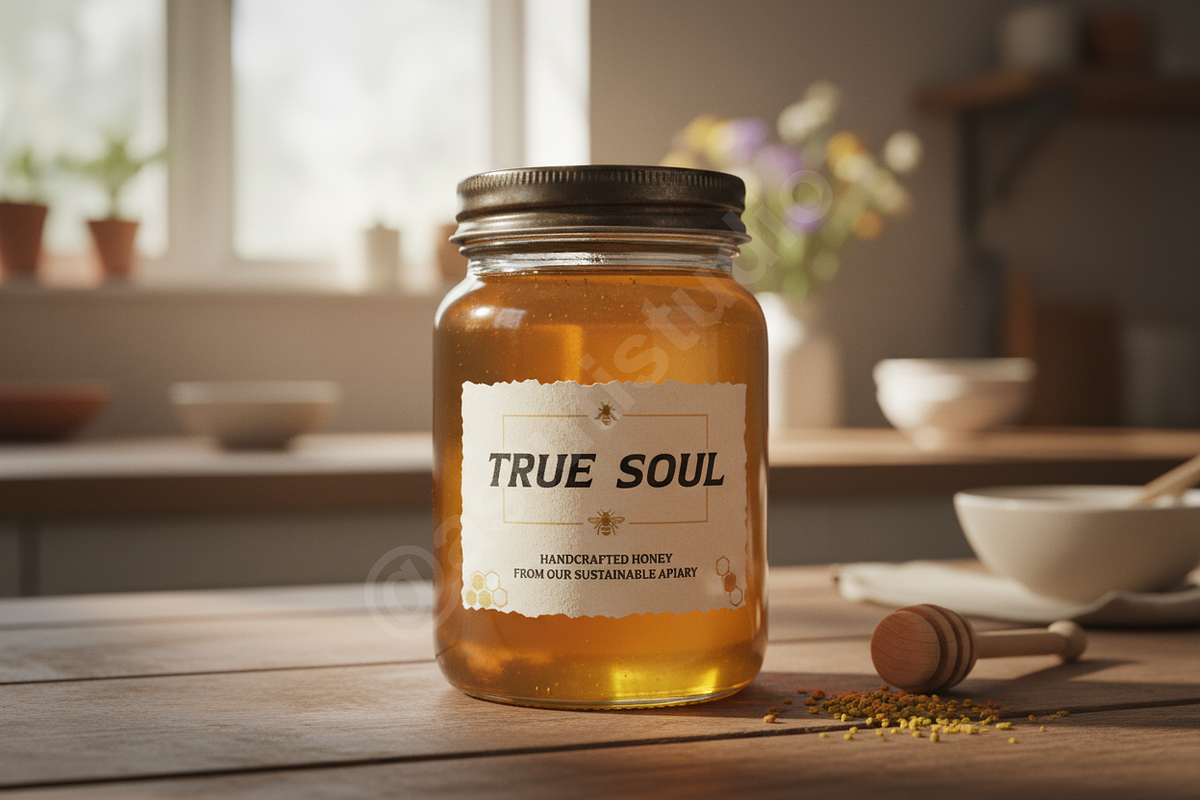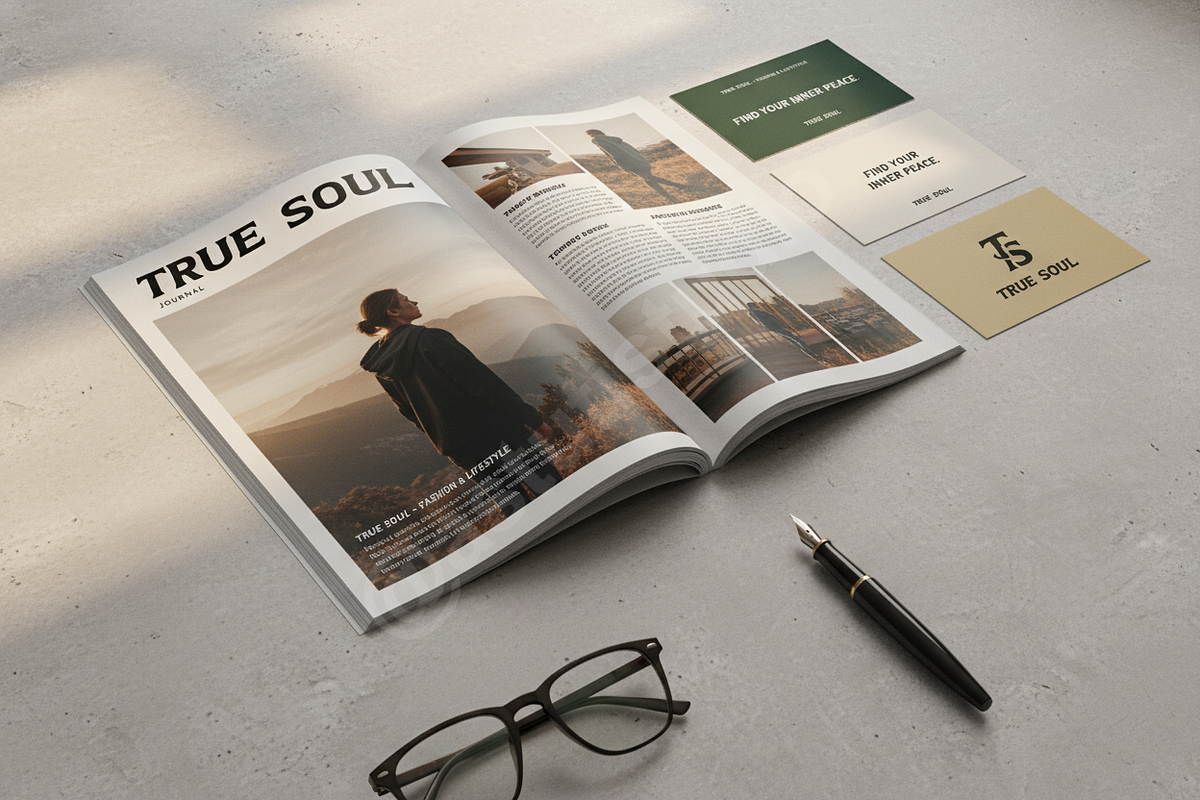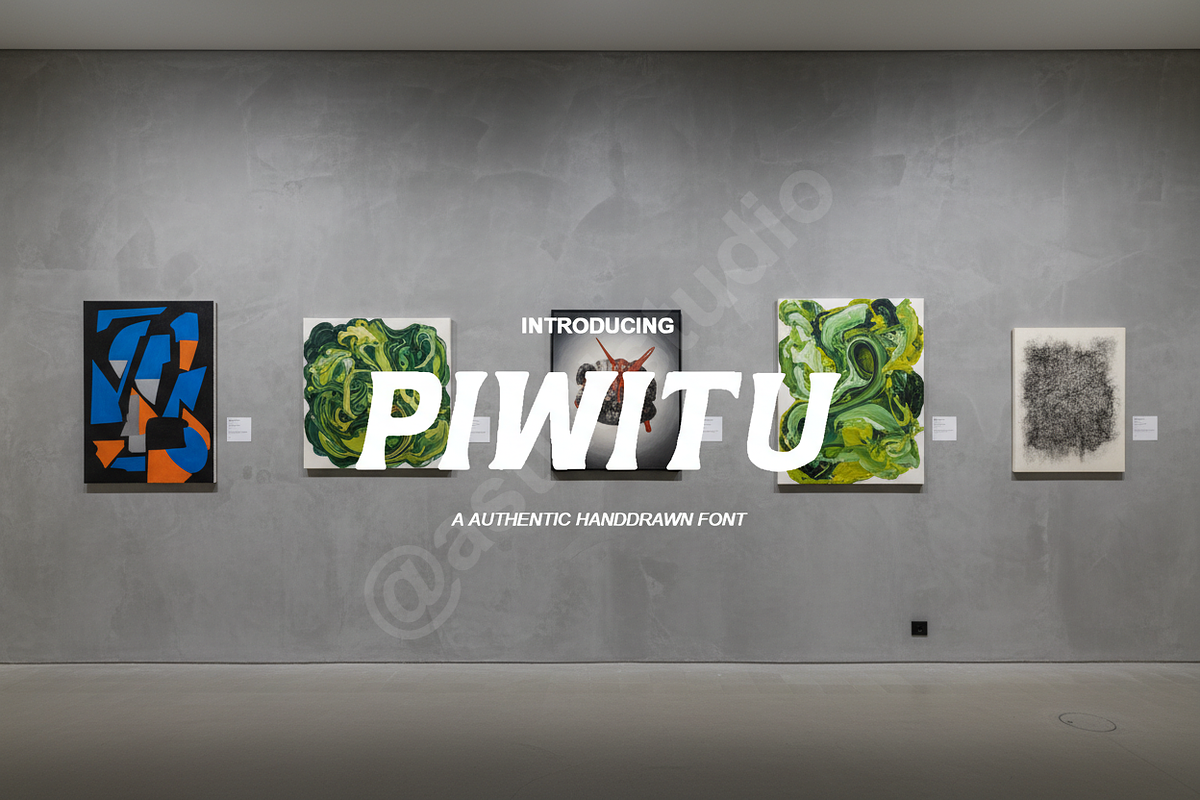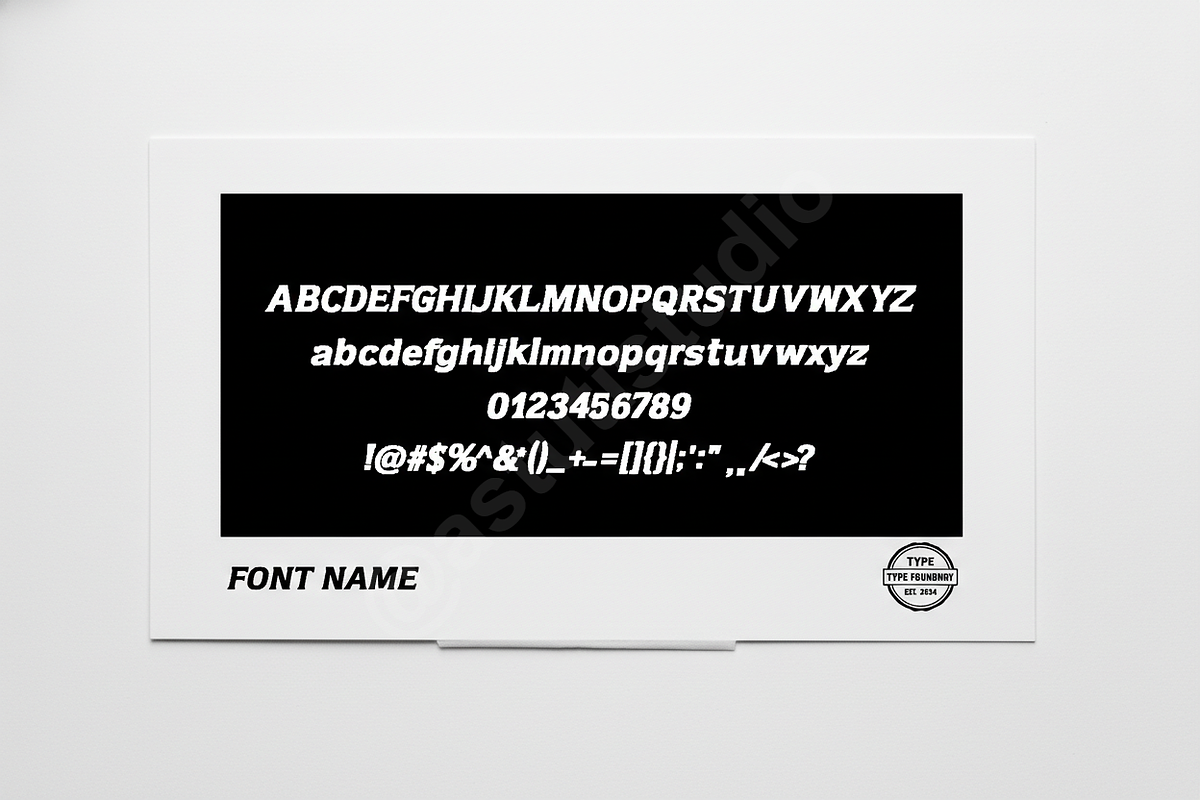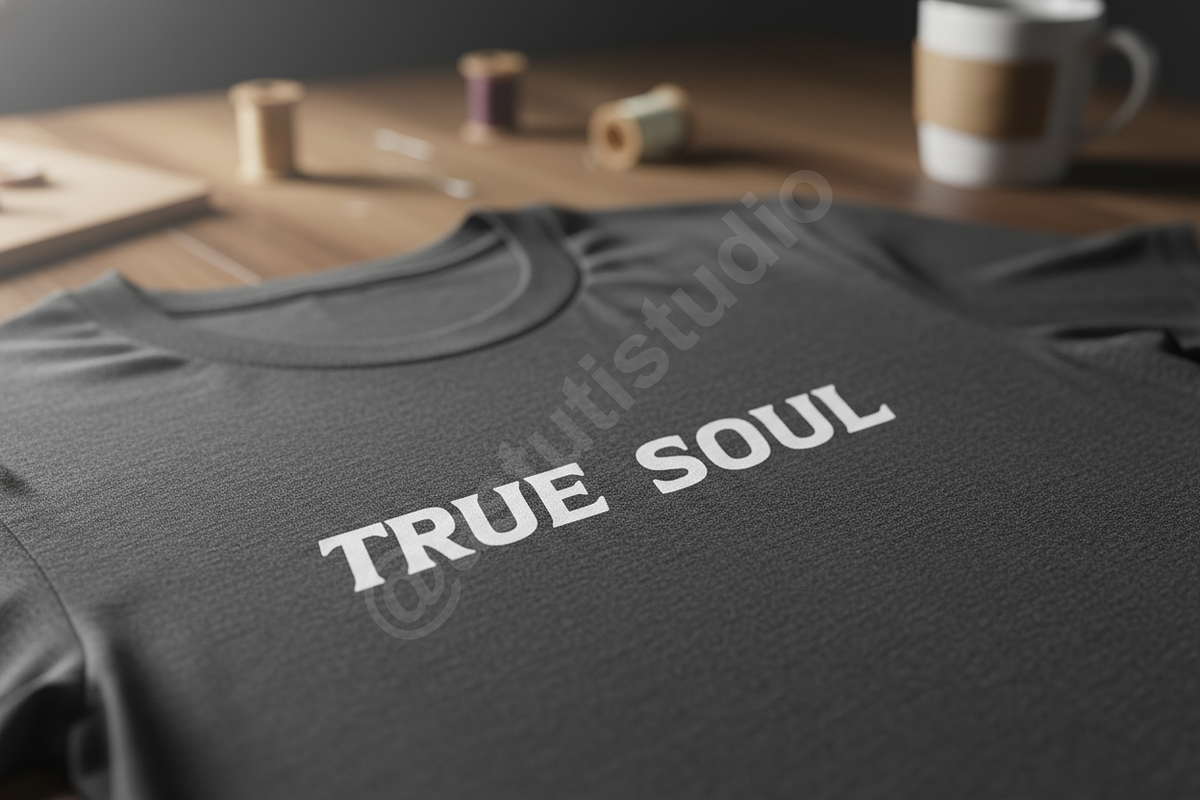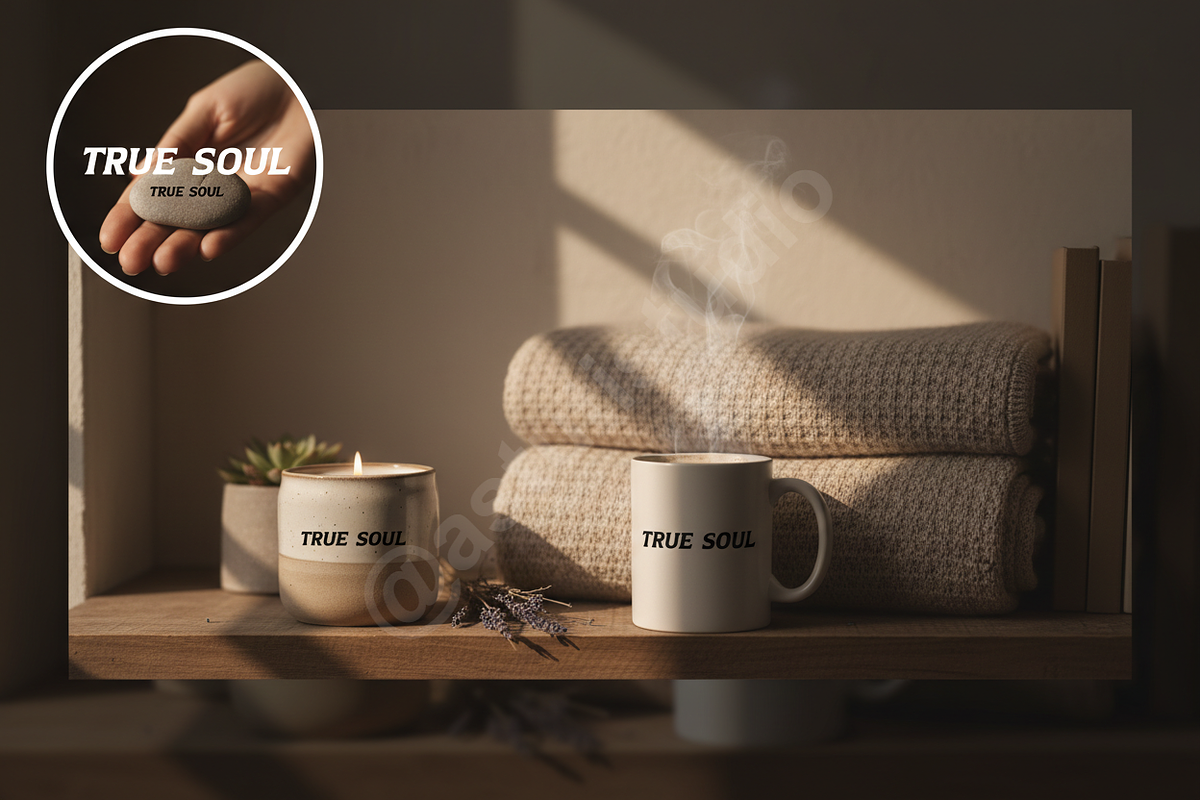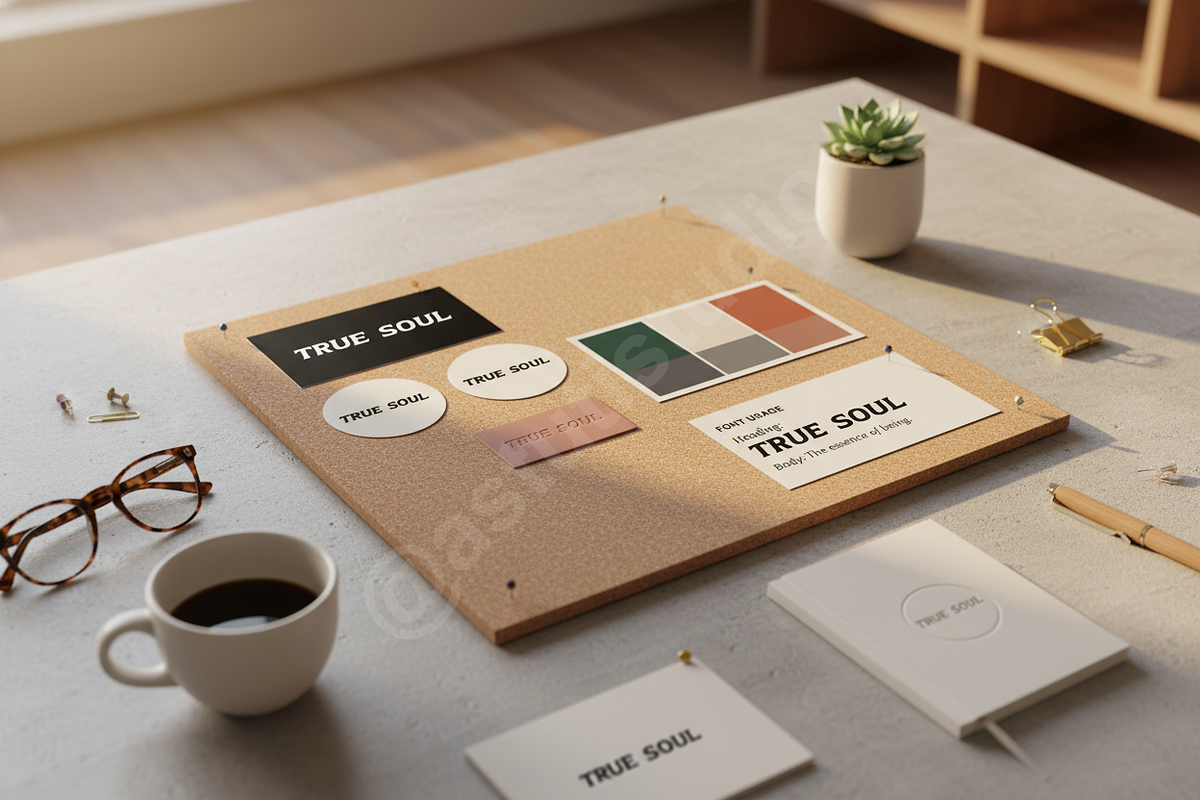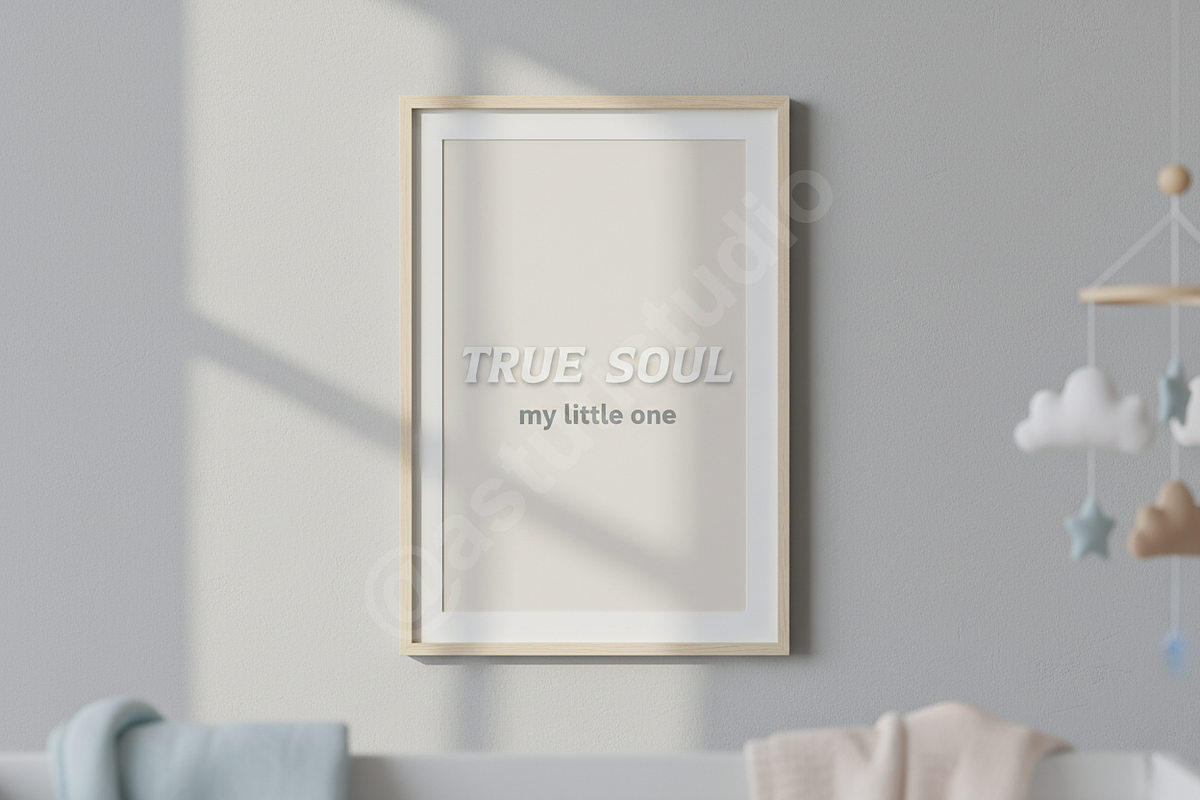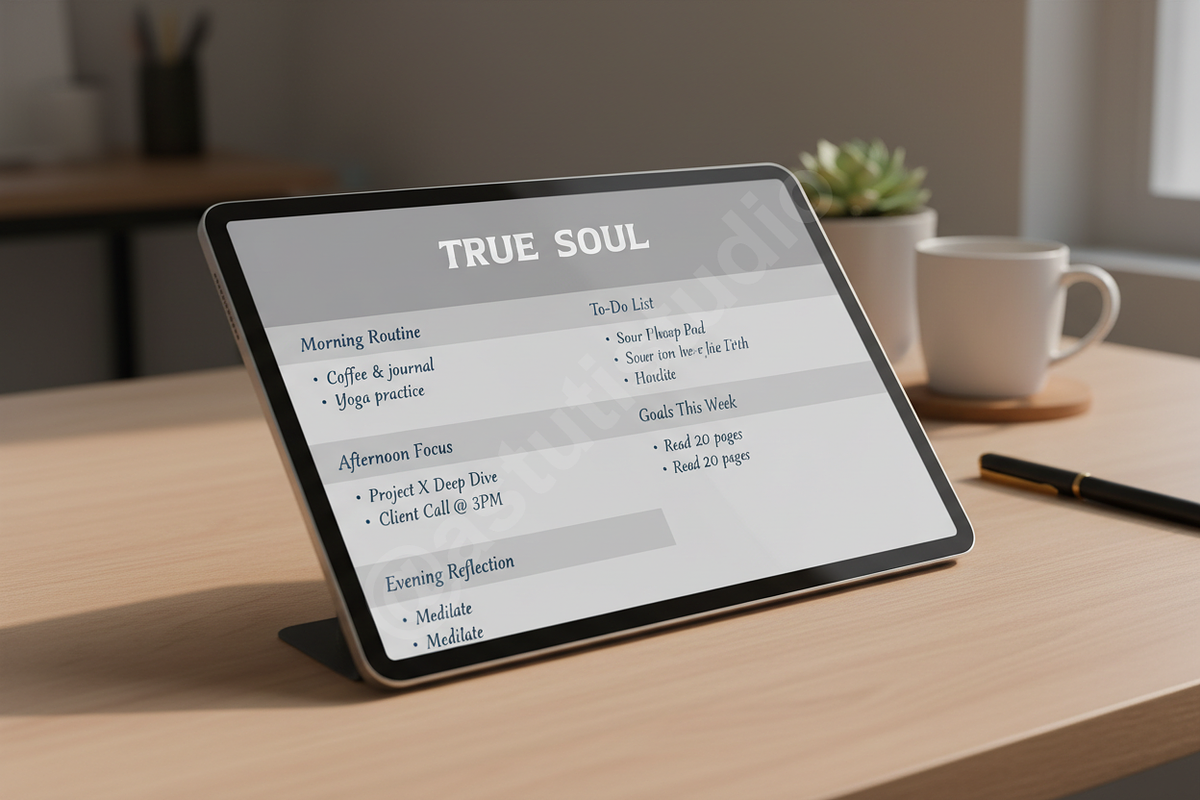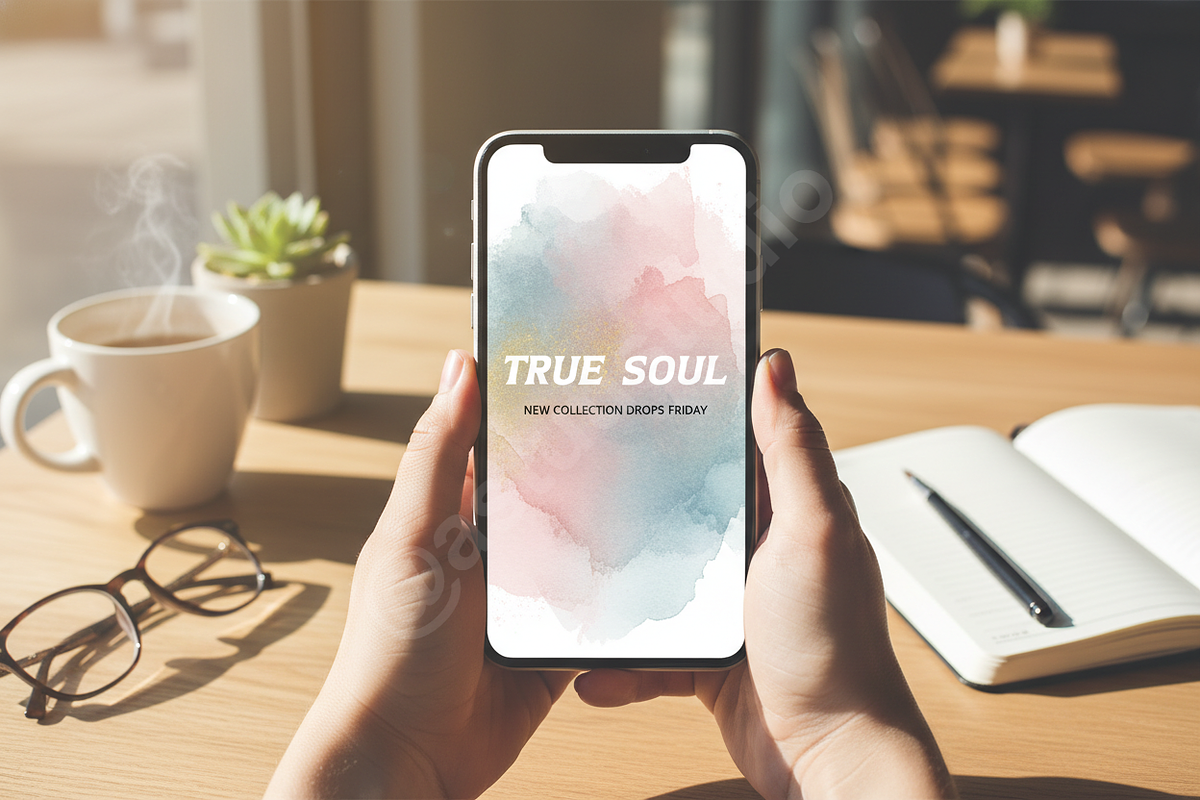
Piwitu | Elegant Modern Serif Typefa
INTRODUCTION Piwitu is a premium serif font meticulously crafted for high-end design aesthetics. Balancing timeless classicism with a sharp modern edge, it is the quintessential choice for projects that require a touch of understated luxury and sophistication. Its refined silhouettes and deliberate proportions make it a standout addition to any professional designer's toolkit.
PERFECT FOR This typeface is ideal for luxury branding, high-fashion editorial layouts, minimalist social media content, and boutique identity systems. Whether you are designing a sleek magazine spread, a premium logo, or an upscale invitation, Piwitu ensures a professional and polished finish that resonates with a discerning audience.
- High-contrast letterforms for a sophisticated look
- Selection of elegant discretionary ligatures
- Clean, legible strokes suitable for both display and body text
- Comprehensive multilingual support
- Precise kerning for a balanced typographic flow
- Full character set: Uppercase, Lowercase, Numbers, and Punctuation
- Stylistic alternates for customized typography